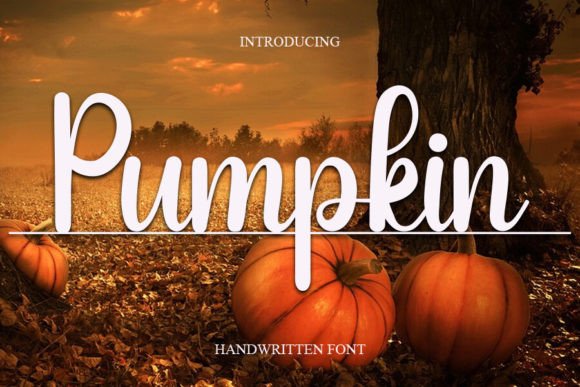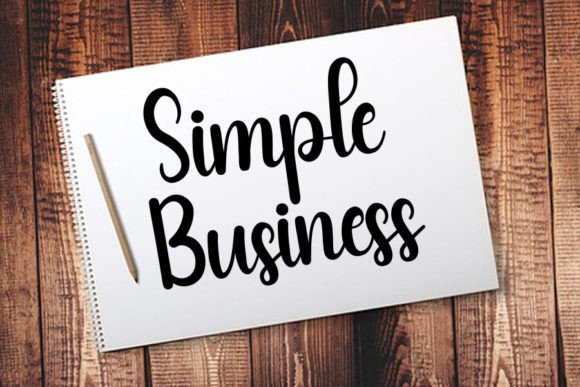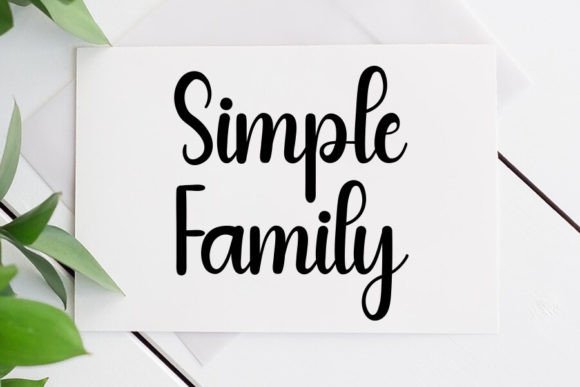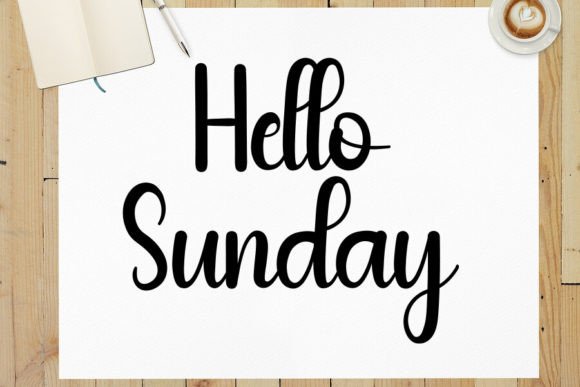
Pumpkin Font
About the Pumpkin Font
The wait is over! The incredible Pumpkin Font is now available for your design toolkit. Pumpkin is a sweet and cursive handwritten font. This gentle font will look gorgeous on a variety of design ideas. It will add a joyful and romantic touch to each of your projects! Perfectly fit for branding, logo, wedding things, greeting cards, fashion, lookbook, marketing promotion, and any time you want your design to look fancy and elegant but still casual.
Pumpkin’s delicate cursive style is ideal for headlines, short text blocks on branding materials, and invitations. Its charm works well in projects requiring a romantic or whimsical feel, such as wedding stationery, greeting cards, and fashion-related marketing. However, avoid using Pumpkin for body text or lengthy paragraphs; its low x-height and connected script will hinder readability.
Pairing Pumpkin with a clean sans-serif like Montserrat for body copy provides excellent contrast and visual balance. For a more playful aesthetic, consider pairing it with a geometric sans-serif like Futura. A classic serif like Garamond can add a touch of sophistication when used in supporting text.
Pumpkin’s overall personality is best described as friendly and elegant, offering a touch of casual sophistication. It’s a versatile choice for brands aiming for a warm, approachable yet refined image.
Pumpkin Font Usage Examples
Pumpkin Font Example